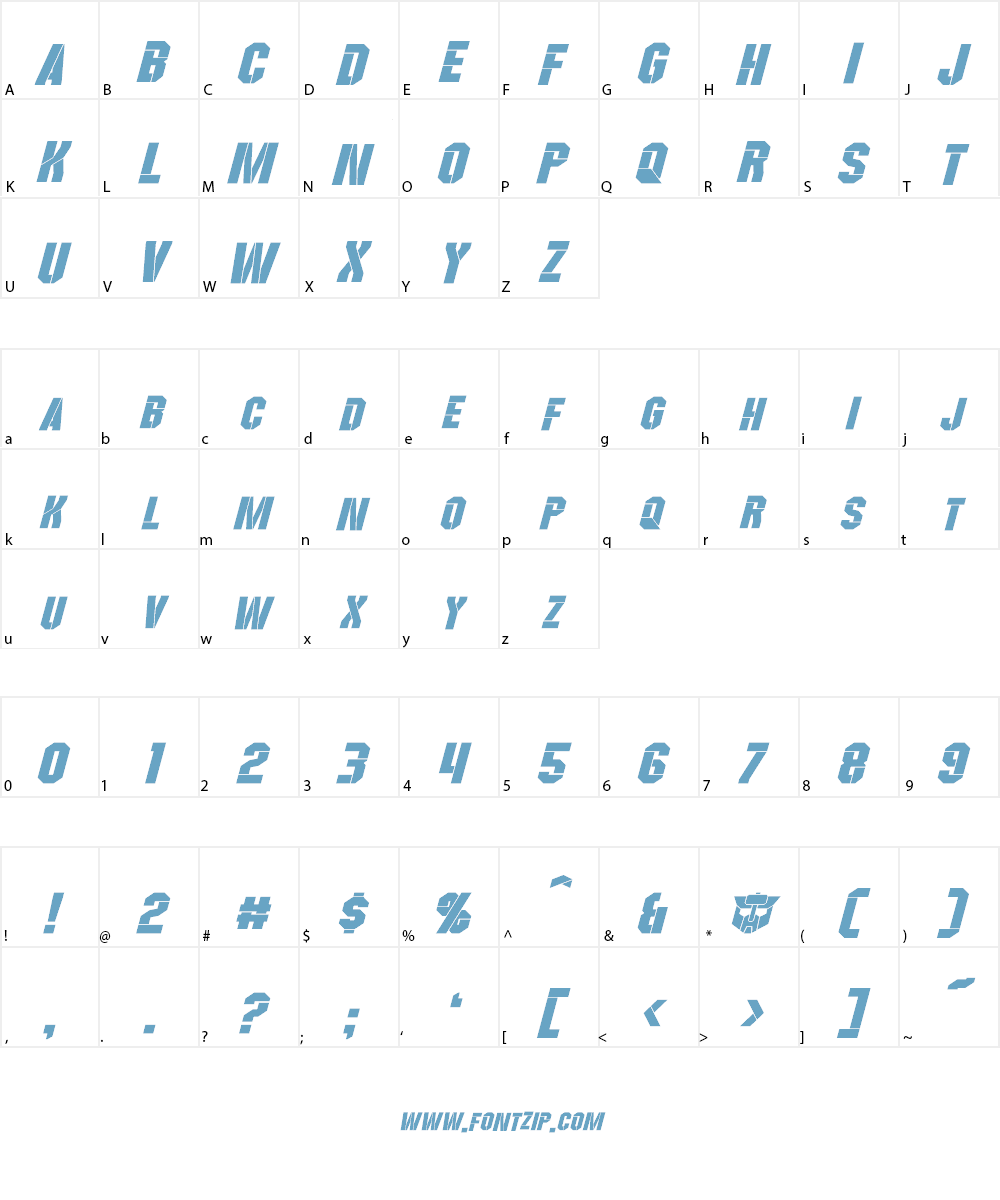
This irregular stencil-based typeface is based on the title logo of IDW Publishing's "The Last Stand of the Wreckers" Transformers comic. Includes full alphabet, extended punctuation, Euro. Includes italic version.